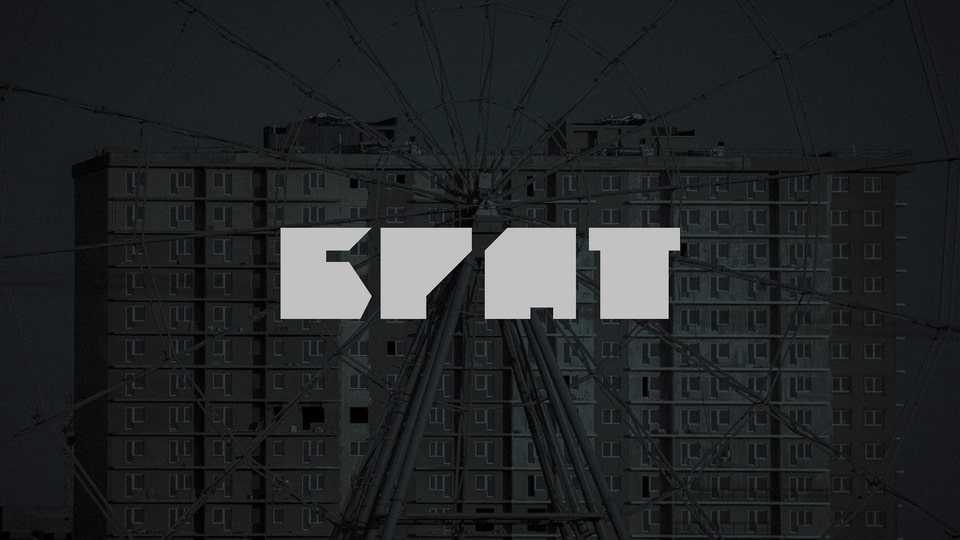
Download Brat font, a bold display typeface born from the idea that the Cyrillic alphabet is a like fence. Brat is the font of the streets and doorways, front doors and courtyards.